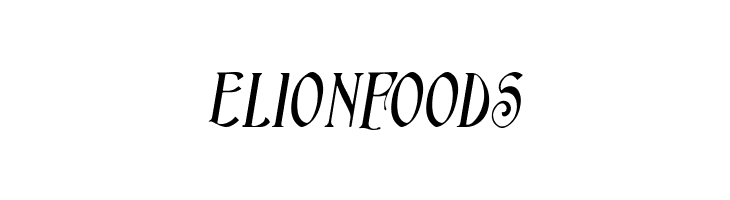
A decorative font with sloped small caps and artistic flair.
A decorative font with elegant, artistic letterforms and playful curves.
An artistic and decorative font with elongated strokes and intricate details.